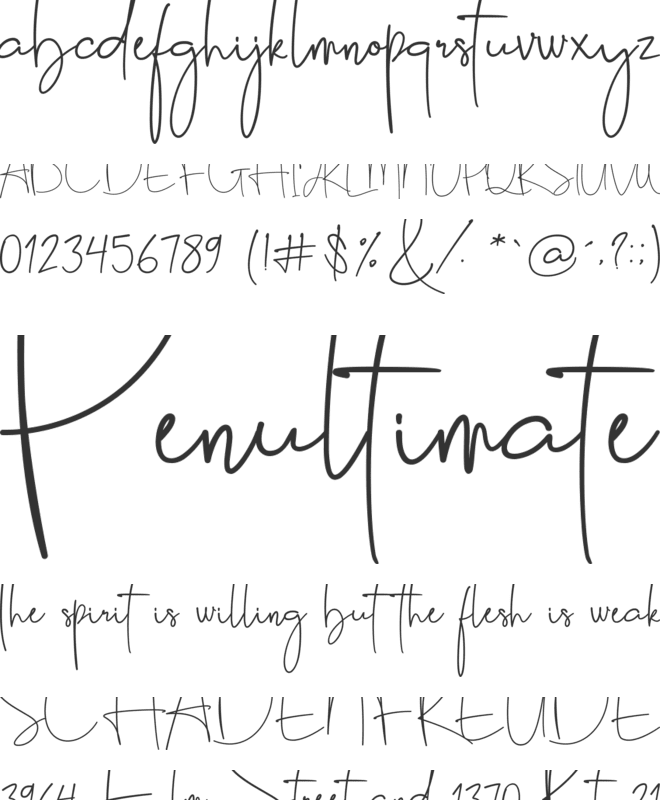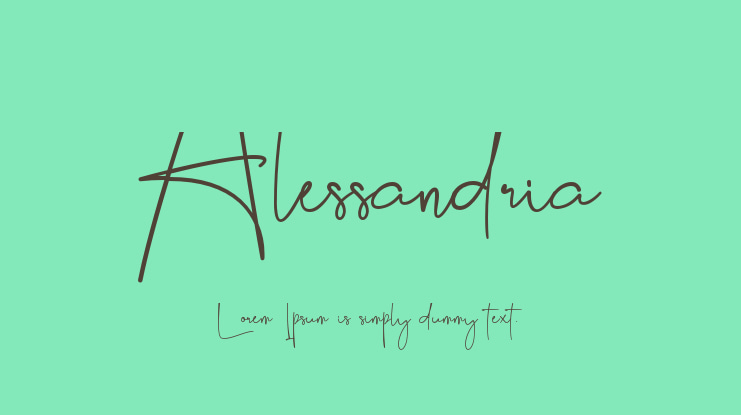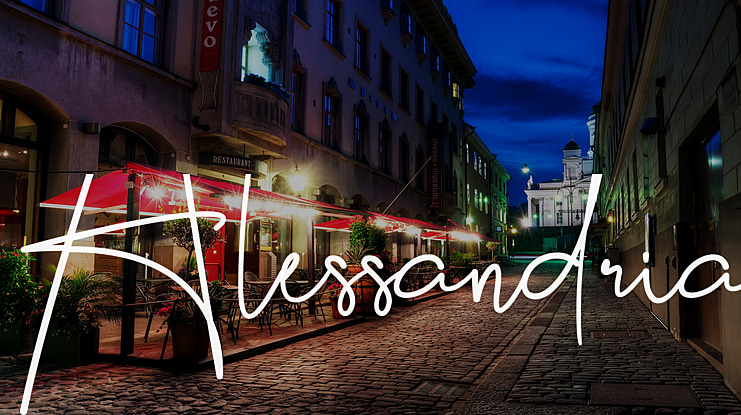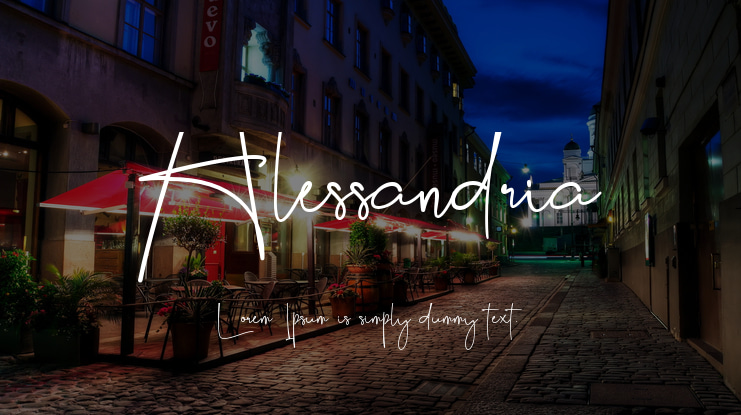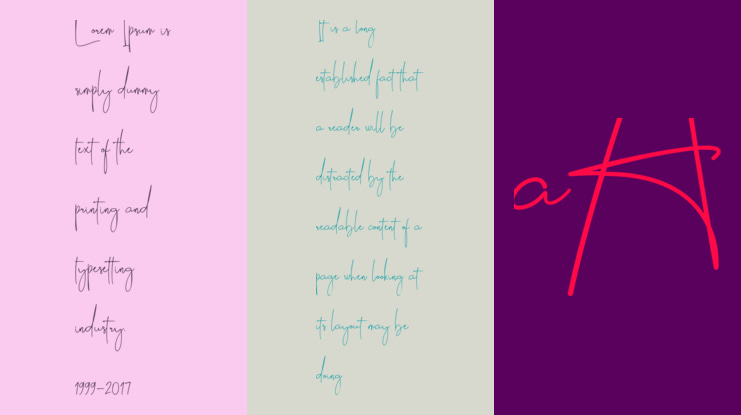
Alessandria Font
He was named Alessandria
This letter is made for the purposes of branding design, the scratches look flowing naturally, it is perfect for designing your own brand and for other branding designs, these letters look perfect on all printing techniques, foil emboss, embroidery, and others.
Alessandria has a full set of uppercase and lowercase letters, multilingual symbols, numbers, punctuation, and ligatures.